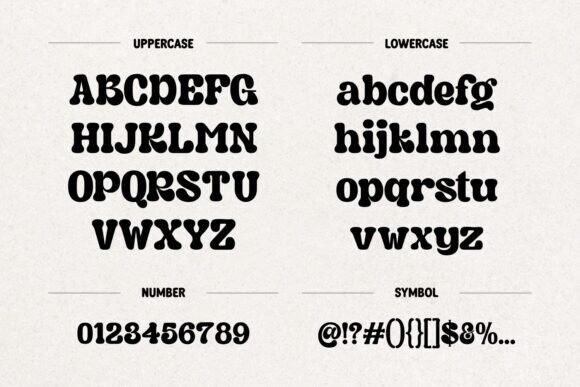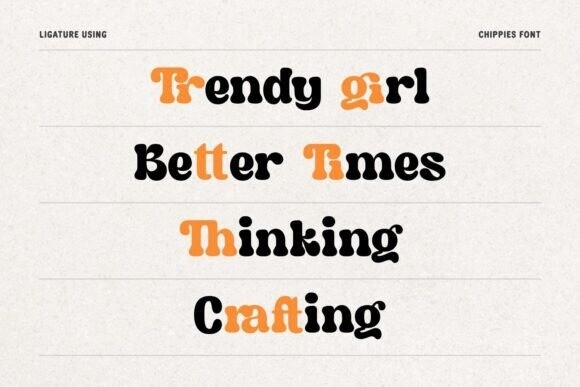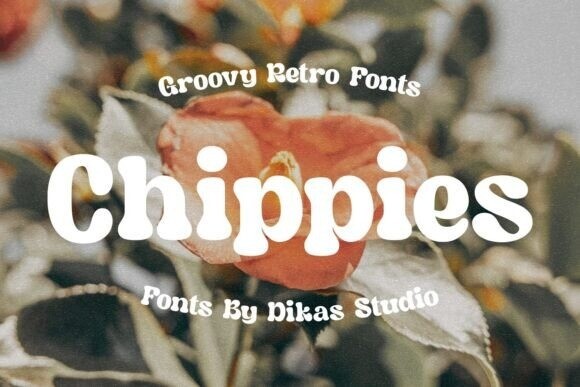
Chippies Font
Designer: Dikas Studio
Chippies Font is a bold, rounded font that brings a playful retro vibe to any design. Perfect for vintage-inspired projects, it’s packed with personality and ready to make your work stand out. Whether you’re creating posters, logos, or packaging, Chippies adds a fun and nostalgic touch to your designs.